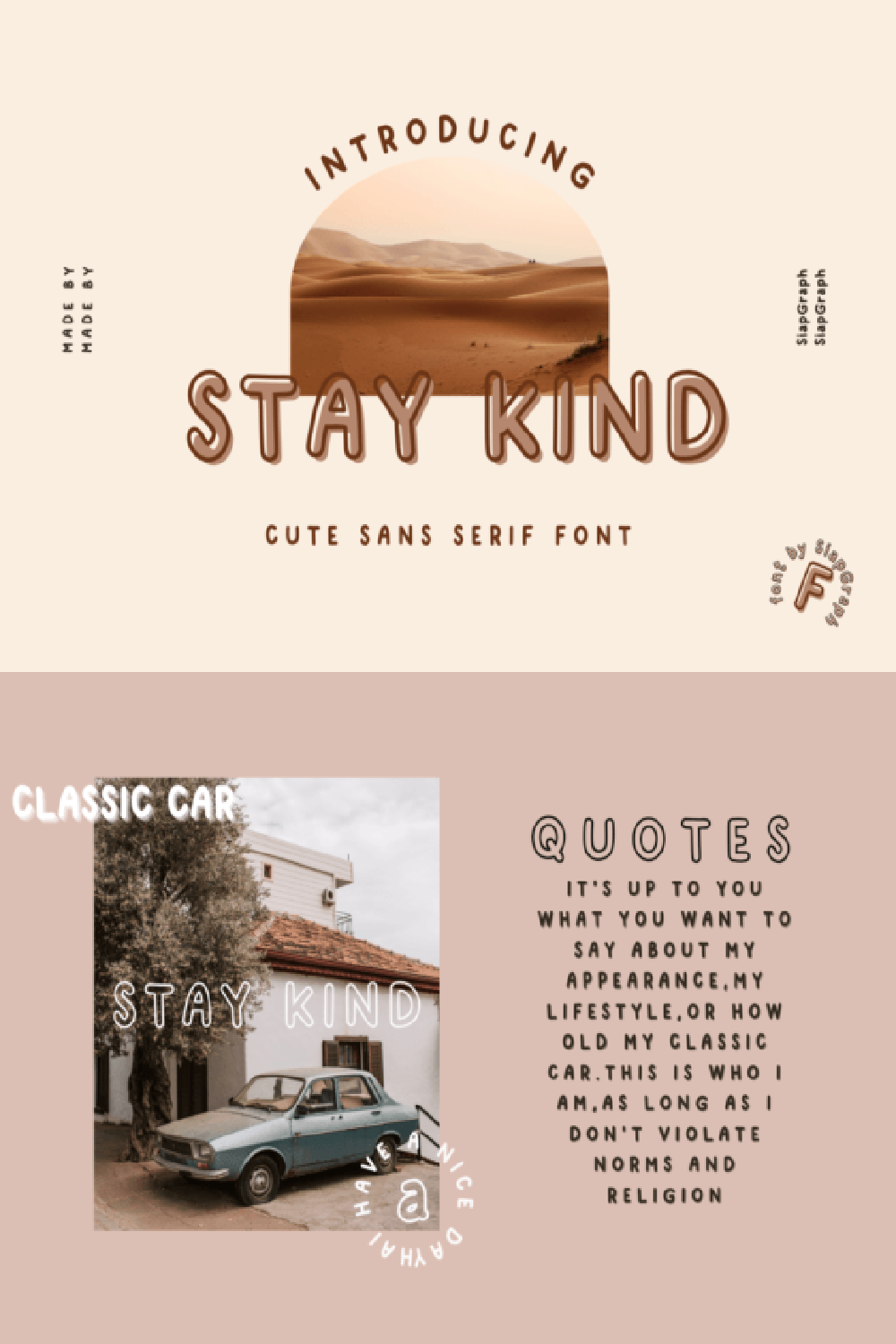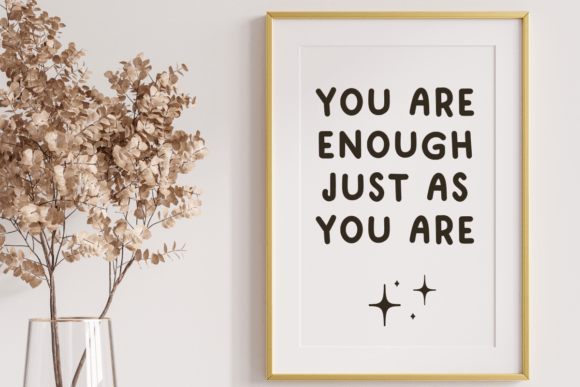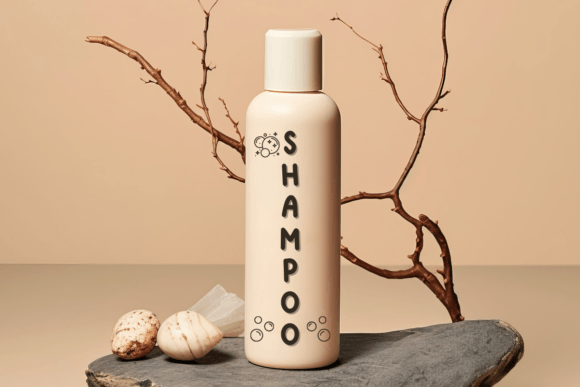
Stay Kind Font: A Cute & Playful Sans Serif for Cricut & Crafts!
About the Stay Kind Font
Elevate your designs with Stay Kind Font, a font that combines sophistication with readability. Stay Kind is a cute and playful sans serif font. Whatever the topic, this font is perfect for your creative craft needs!
Stay Kind Font Usage Examples